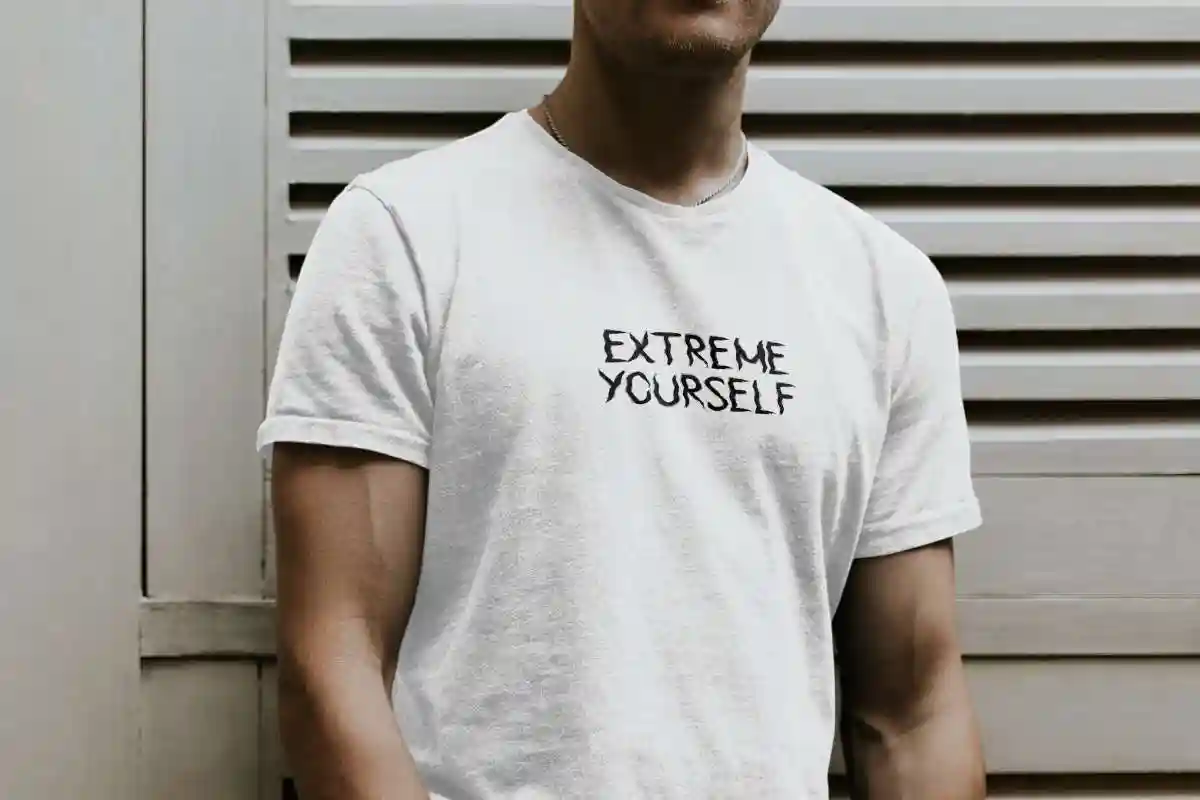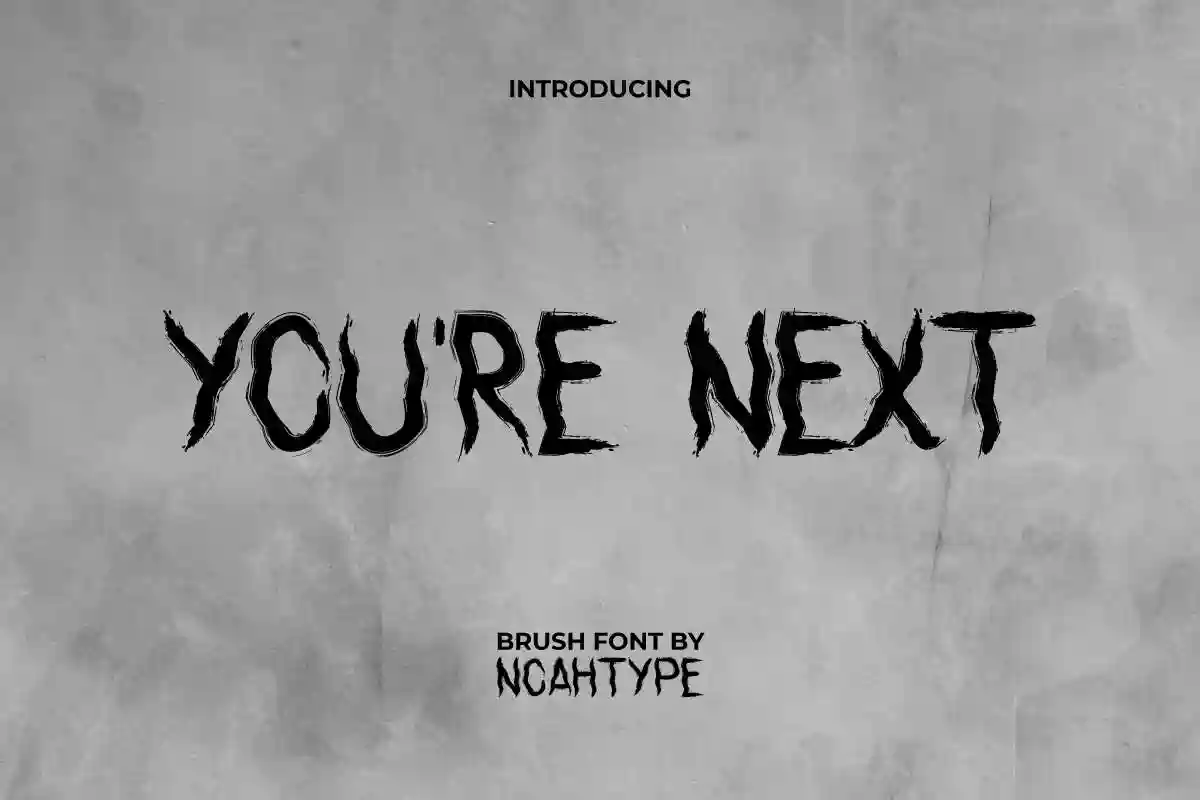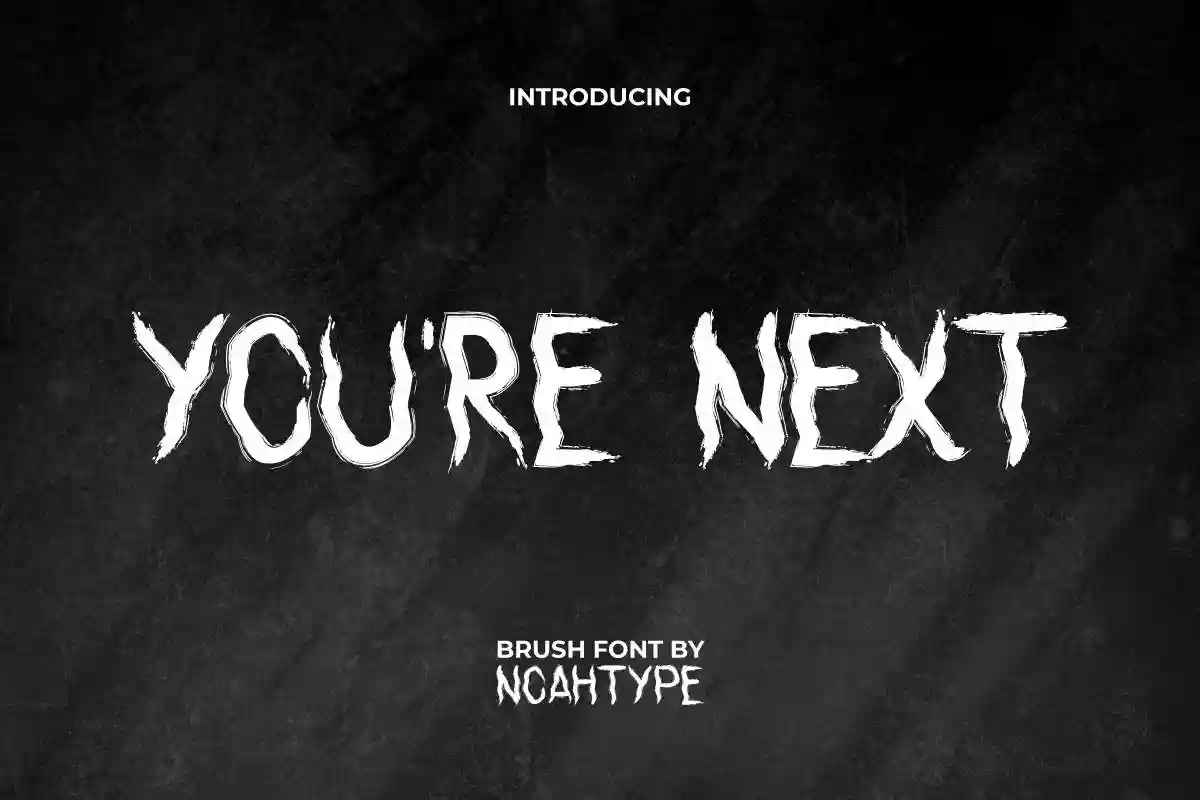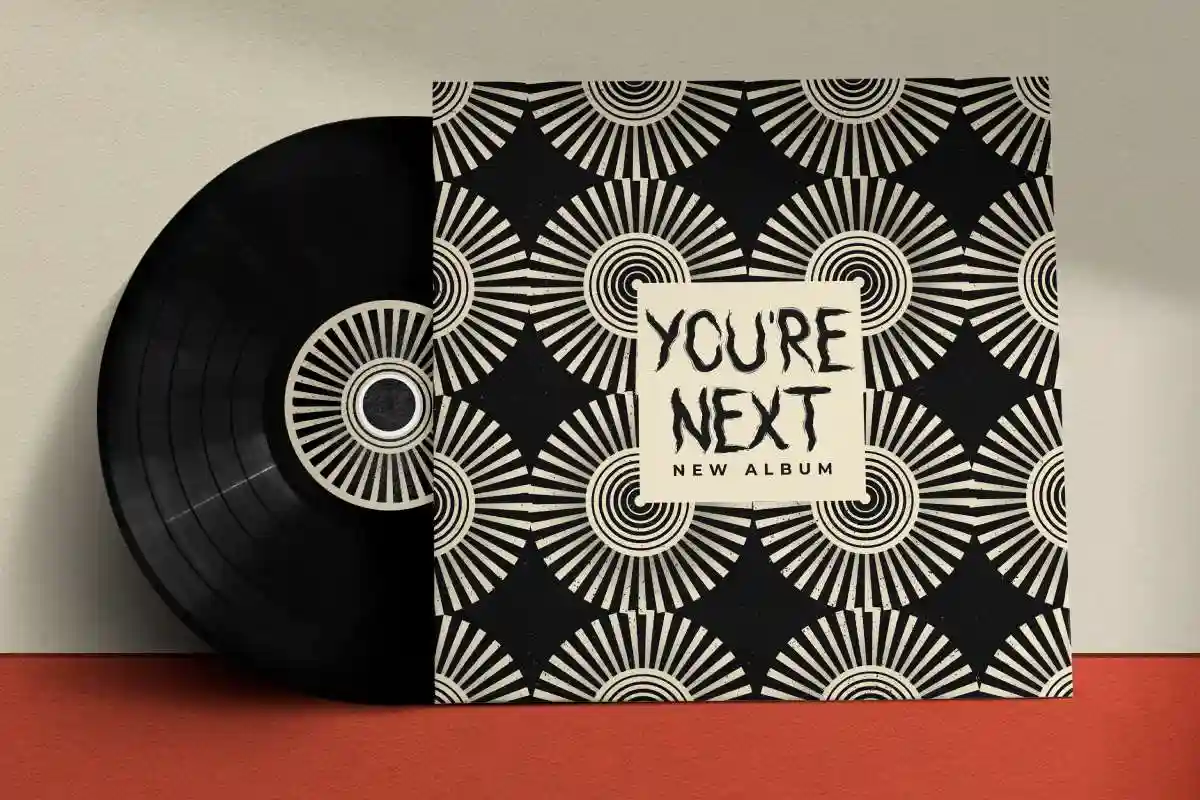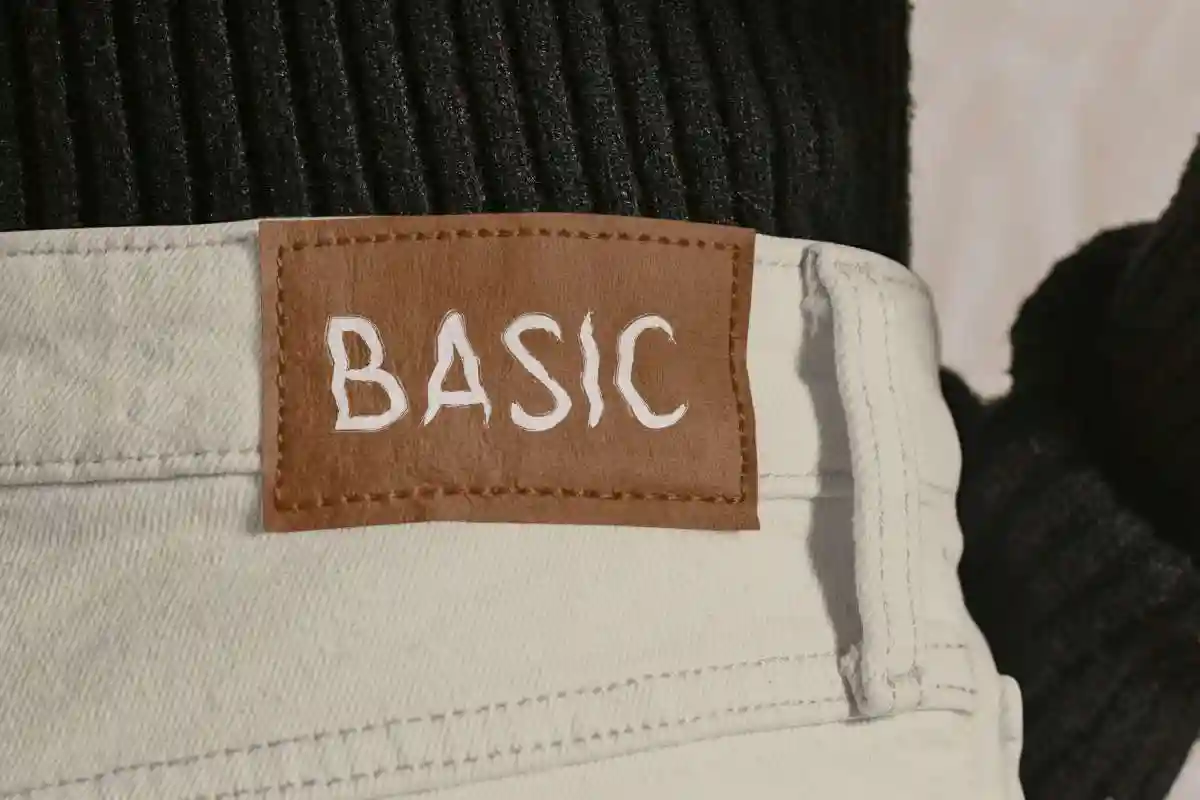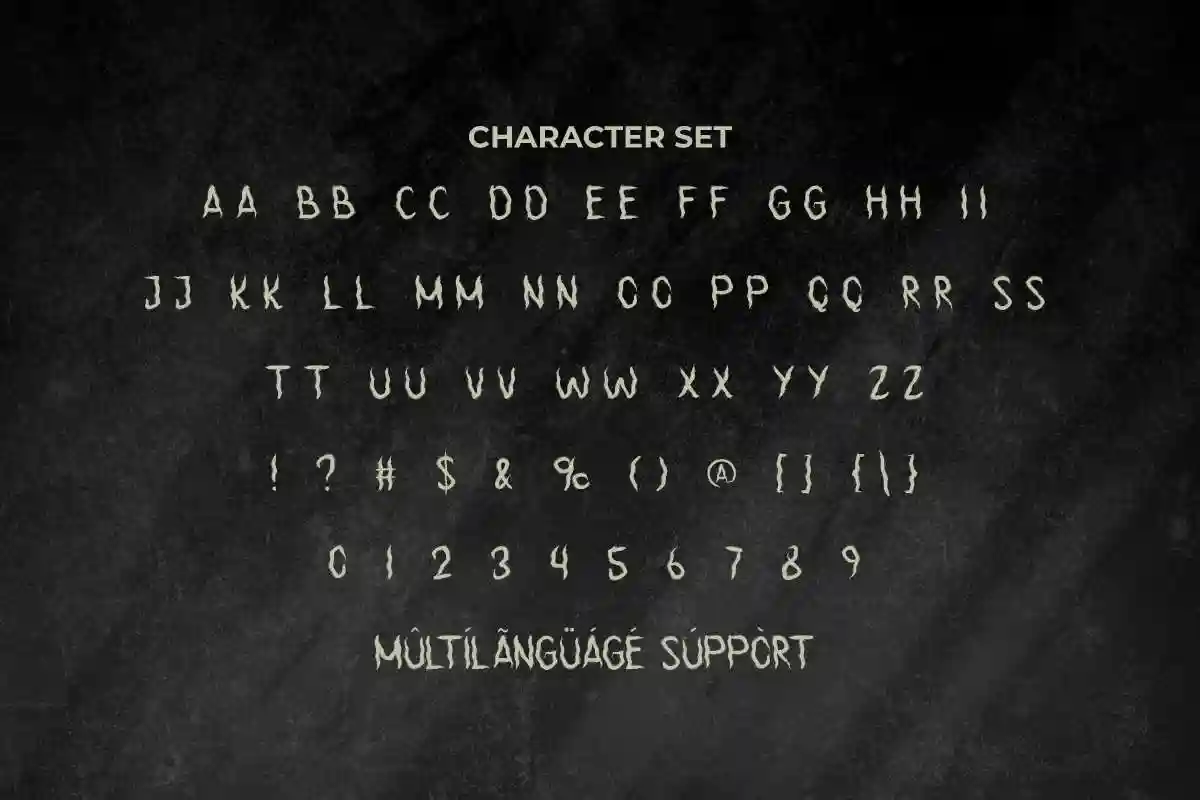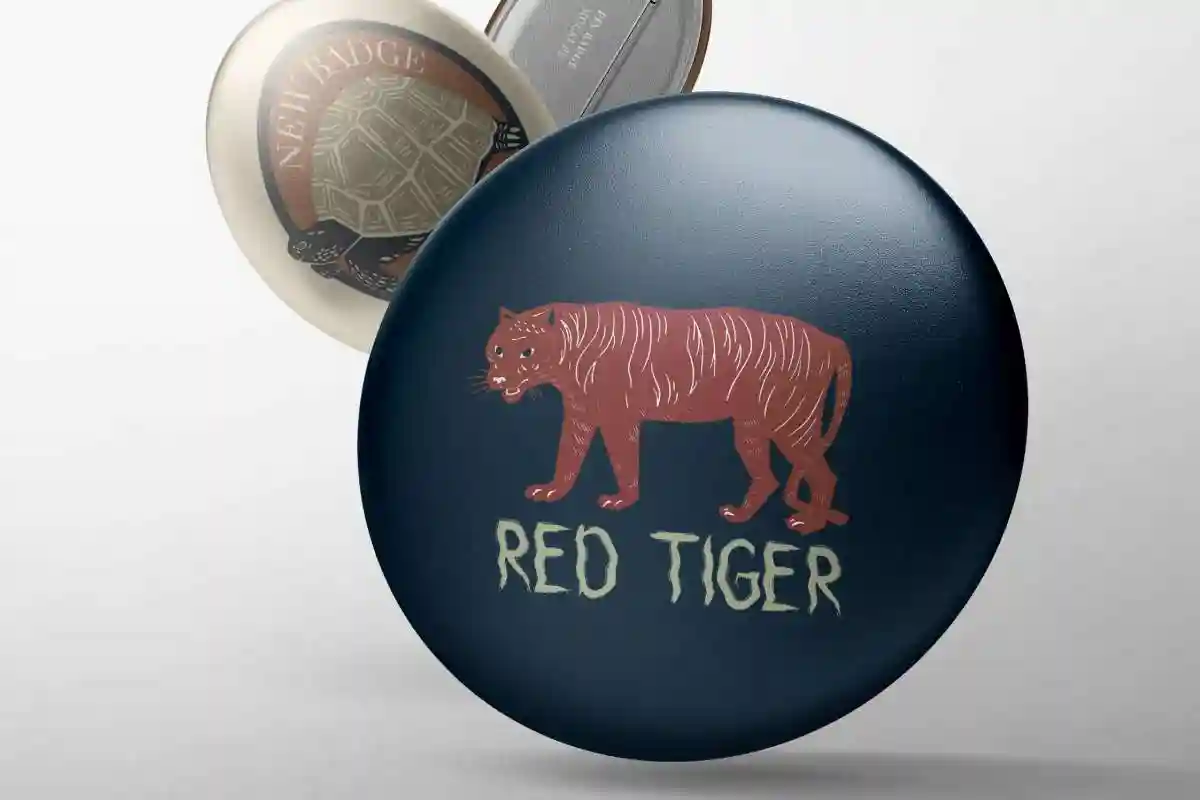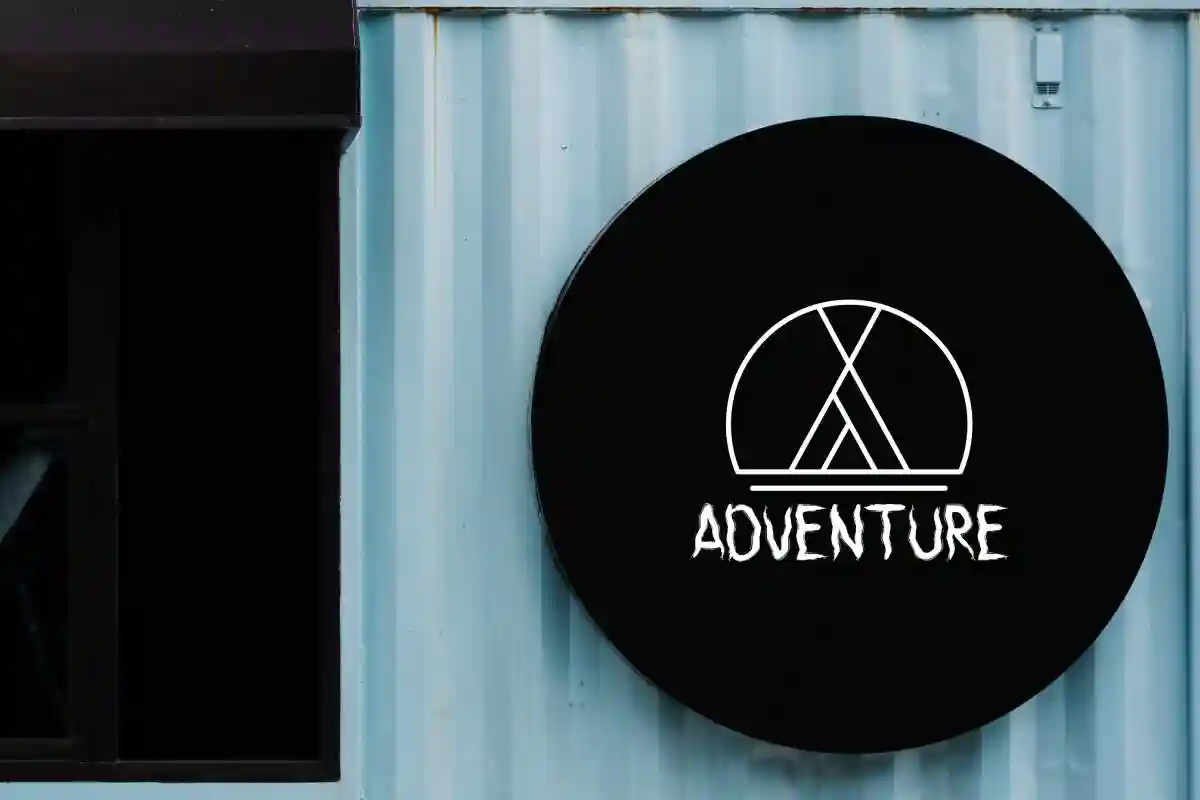
You’re Next Font is a horror creepy brush writing font. Any text that uses this font will have a creepy impression that will be etched in anyone’s memory. This brush font is for anyone who are needing of horror look. This brush font will be awesome for accessories, design graphic, fashion, game, magazine, movie, music, photography, writer, and more!
You’re Next Font includes full set of ALL CAPS Basic Characters, Numerals, Punctuation, and Symbol. The characters of this font are perfectly makes you feel haunted and will be perfect for your extraordinary project. You’re Next Font will be awesome for business card, catalog, custom design, invitation, label, poster, product packaging, quote, wallpaper, website, etc.